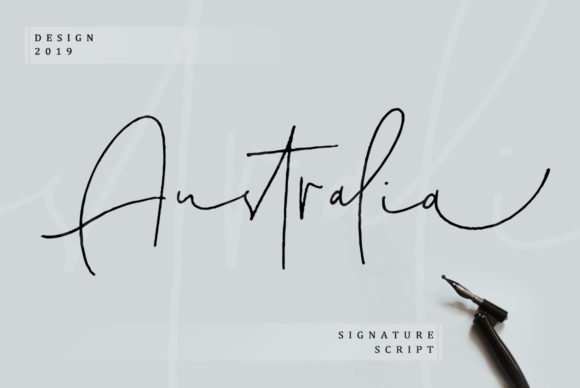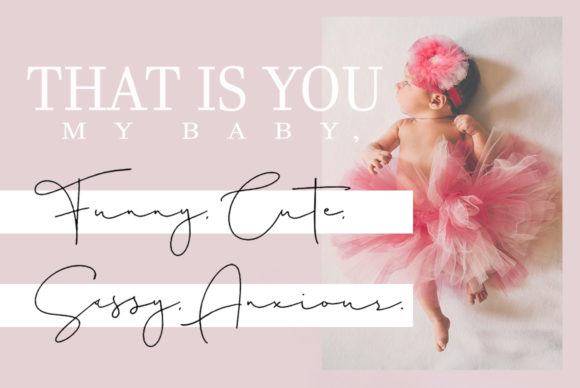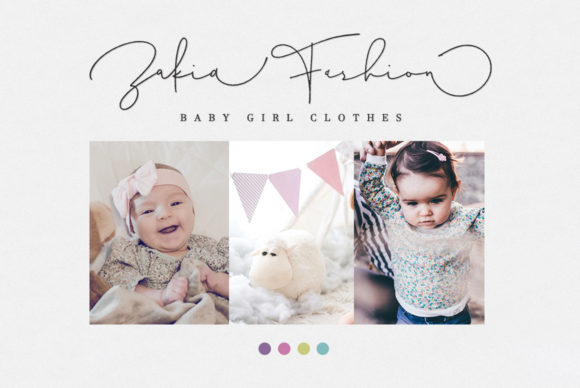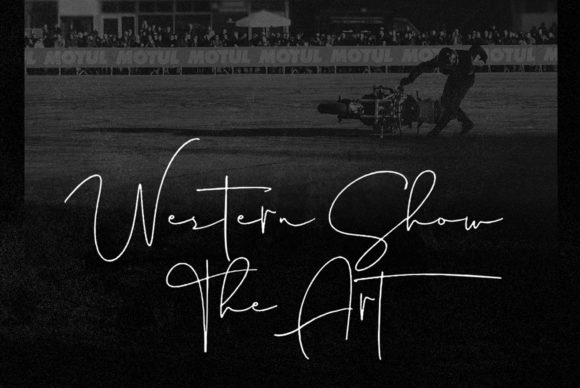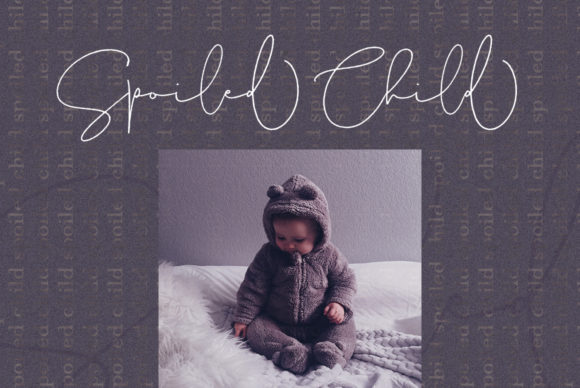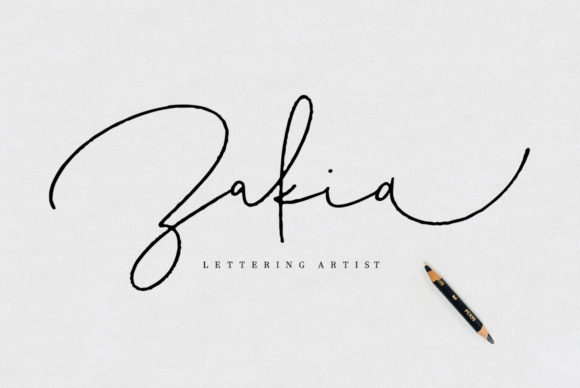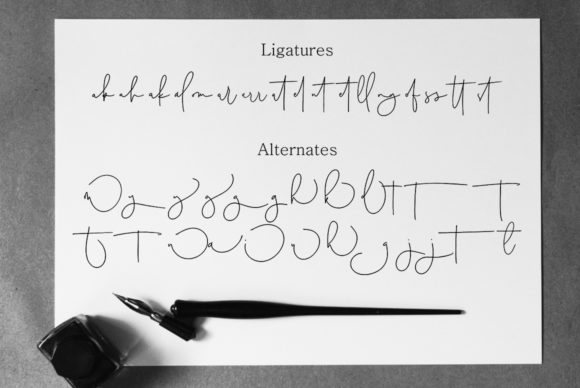
Australia Script Font
About Australia Script Font
The Australia is an elegant monoline handwriting font with a signature style. It includes unique alternates which will add a natural touch to every design.
It’s perfect for invitations, greeting cards, news, branding, logos, business cards, posters, product packaging, blog posters etc.